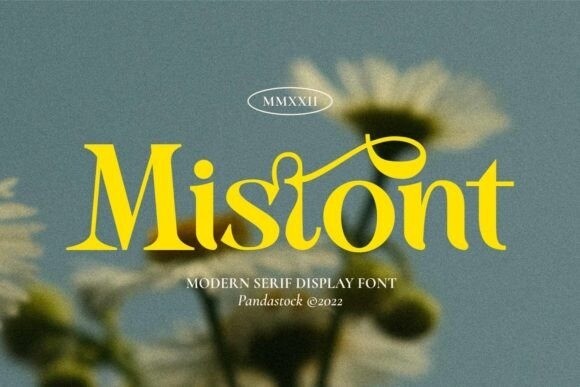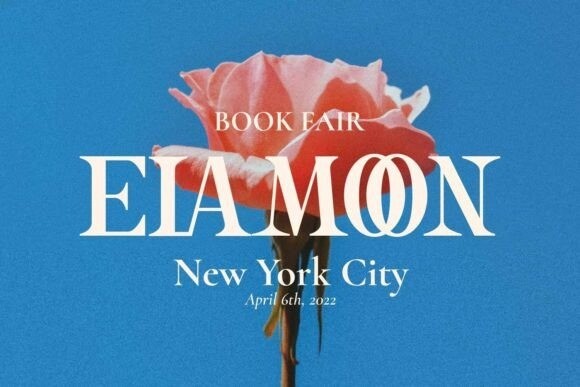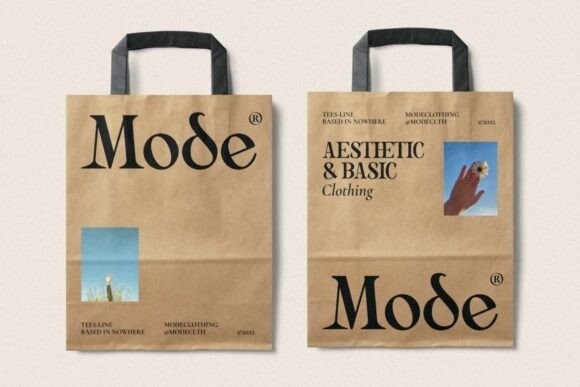
Mistont Font
Mistont is a cool and unique serif display font. No matter the topic, this font will be an incredible asset to your fonts’ library, as it has the potential to elevate any creation.